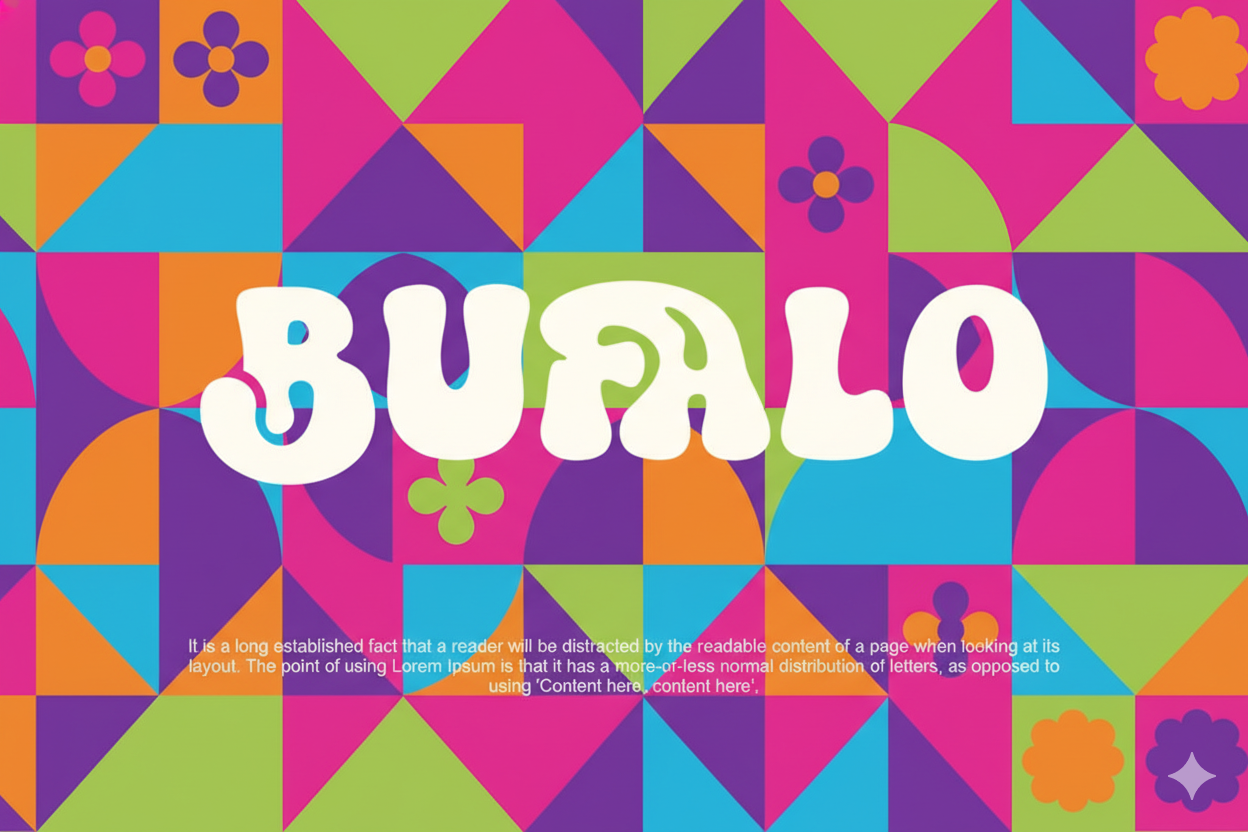
Bultik – Groovy Retro Bubble Font | 70s Display Typeface for Nostalgic Branding & Posters
Bultik is a **groovy retro bubble font** that captures the **warm 70s feel** with a modern, expressive touch. Its **bold and soft curves** create a friendly, **memorable visual identity**, perfect for **branding**, **posters**, and designs that want to **stand out**. Includes Web Font files.
Bultik: The Groovy Retro Bubble Font for Feel-Good Nostalgia
Step back into the best of the past with **Bultik**, a distinctive **retro bubble font** that flawlessly blends the **warm feel of the 70s** with a stylish modern touch. This typeface is a powerful visual communication tool, designed to bring your projects to life with a friendly, fun, and expressive impression.
Each character is crafted with **bold and soft curves** and **unique decorative shapes**, providing a strong, memorable **visual identity** that’s flexible for any creative context. As a designer, you’ll appreciate how Bultik creates a **”feel-good nostalgia”** atmosphere without compromising professionalism.
Why Bultik Will Make Your Designs Stand Out:
• **Soft Retro-Modern Impression:** Achieves a perfect balance between playful and elegant, maintaining great readability at various sizes.
• **High Impact:** Ideal for design projects that need to **stand out** and communicate a **free spirit** (e.g., vintage posters, album covers, fashion branding).
• **Memorable Branding:** Excellent for **logos**, **merchandise**, and editorial design that requires unique and **authentic characters**.
Style Retro Bubble / Groovy
Optimal Use Large Display / Poster Text
Spacing Normal, Expanded (Flexible Layout)